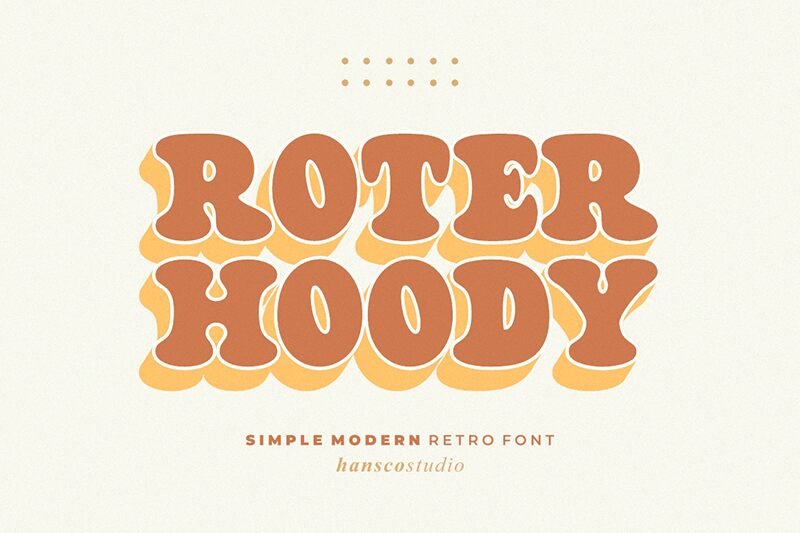
Roter Hoody Regular
Roter Hoody font by HansCo is a bold display typeface with a groovy style, expanded width, and retro-inspired design. It exhibits a bulbous cartoonish aesthetic that brings back the vibes of the 1960s with an added touch of cuteness. The rounded structure plays a specific role in adding softness to its enjoyable presence that can hardly look too serious under any applicable context.
Use this free display font in various types of posters, digital and print ads, social media posts, magazine covers or spreads, product packaging design, and casual mobile game graphics. It is also suitable for branding projects for children’s businesses as well as general identity design work for all age groups.